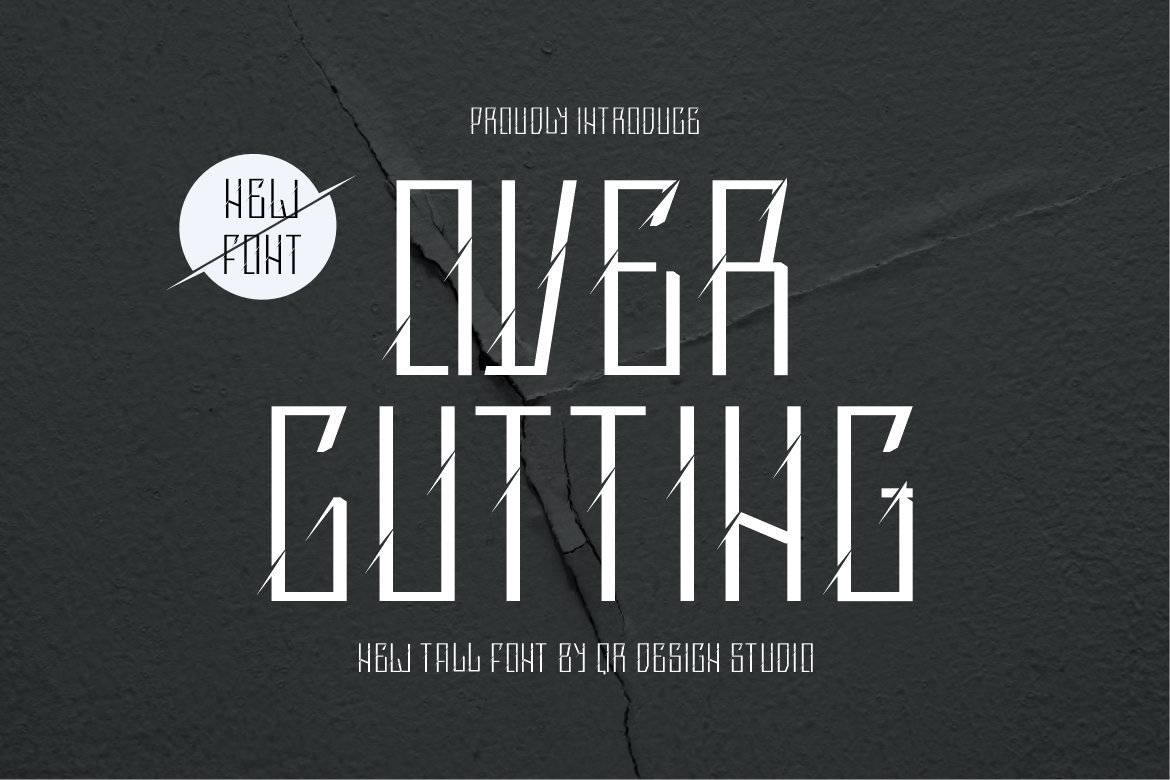
Over Cutting Font
Over Cutting Font is a decorative and authentic display font. The font is suitable for any branding project like poster, logo, sport, and many more. Outstanding in a wide range of contexts.